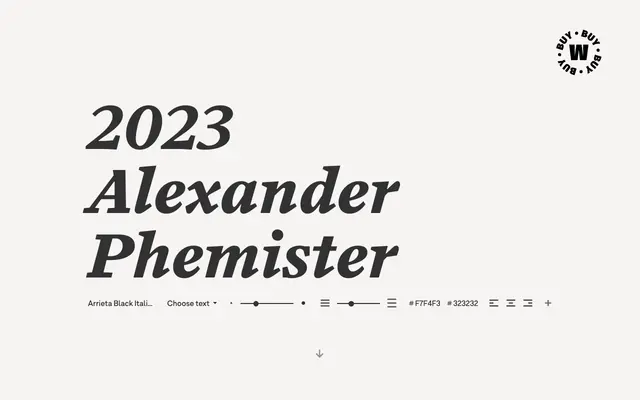
Arrieta
A serif family by Diego Aravena that reduces curves relative to Phemister's Old Style tradition, producing an angular, mechanically inflected text face across four weights.
Arrieta blends the mechanical discipline of punch-cutting with the stroke quality of a nib pen, arriving at a typeface that preserves the texture of Old Style serifs while deliberately avoiding curves. The family runs across eight styles: Regular, Medium, Bold and Black, each with a matching italic. Its angled character gives it a distinctive rhythm suited to editorial and identity contexts where a less conventional serif is wanted.
Arrieta draws from Alexander Phemister's Old Style series tradition but reduces curves, blending punch-cutting mechanics with nib-pen strokes into a form that sits between old-style and transitional serif territory.